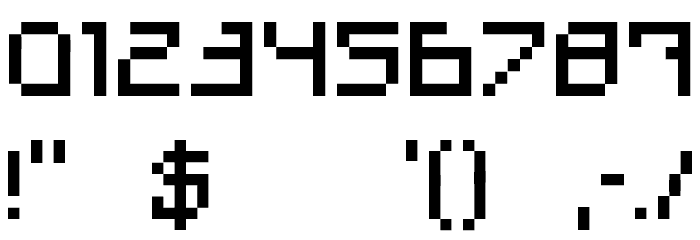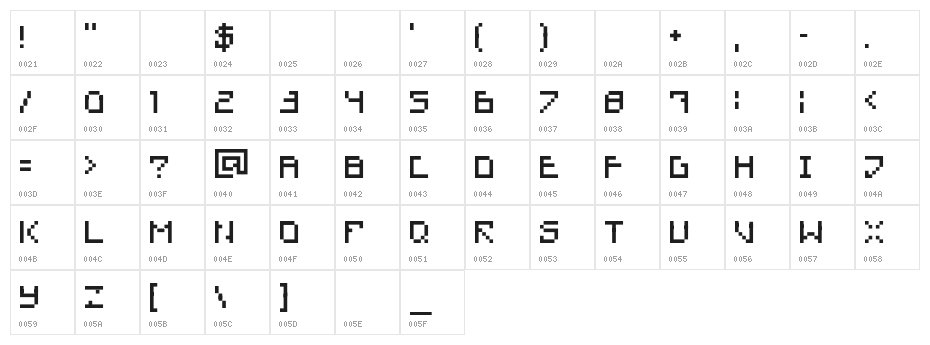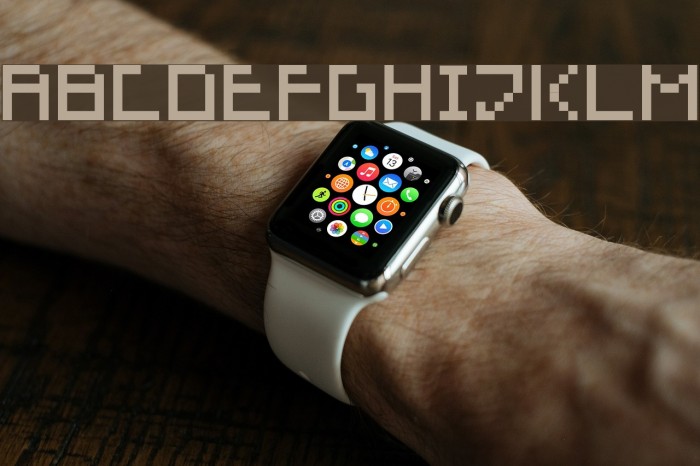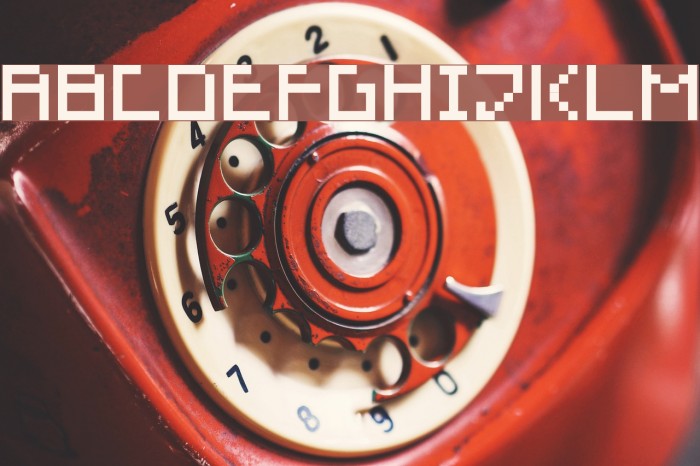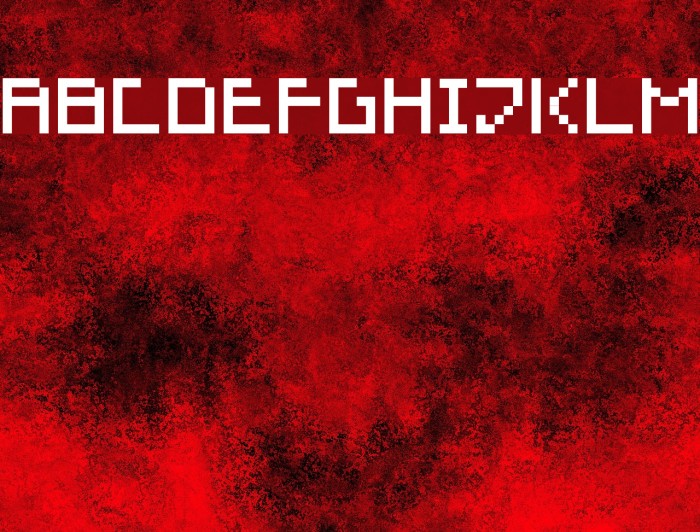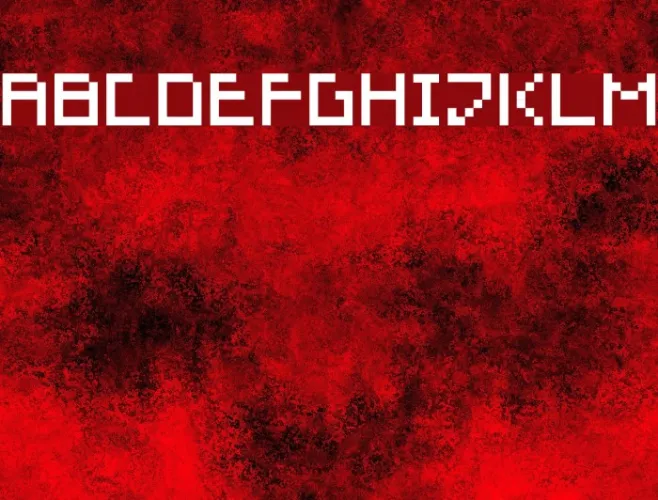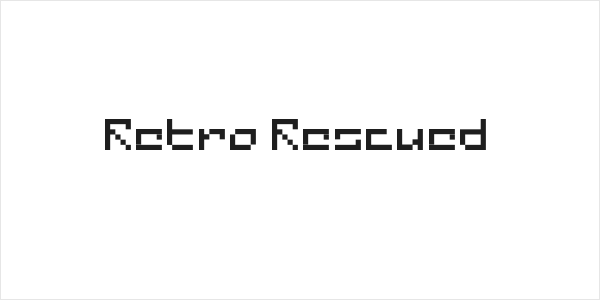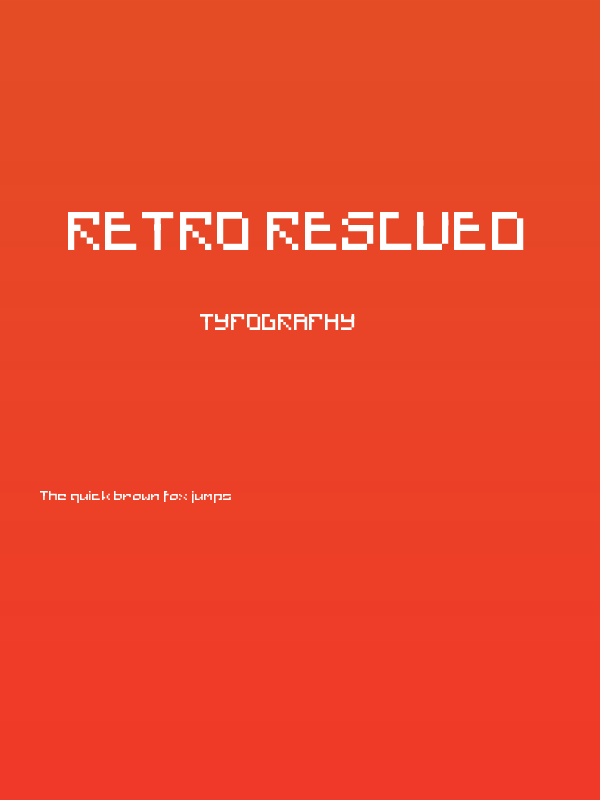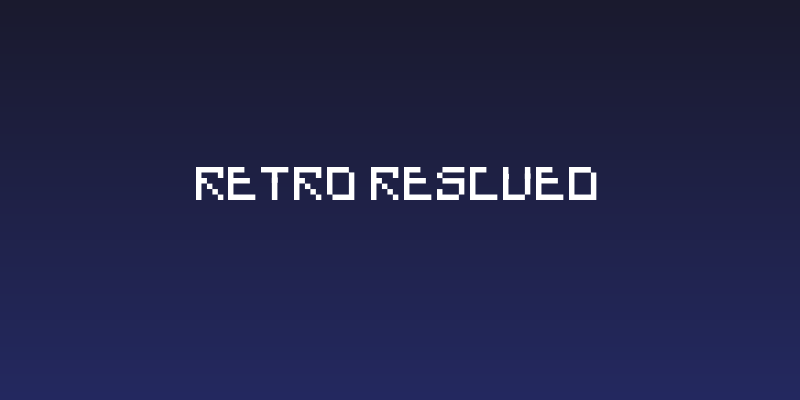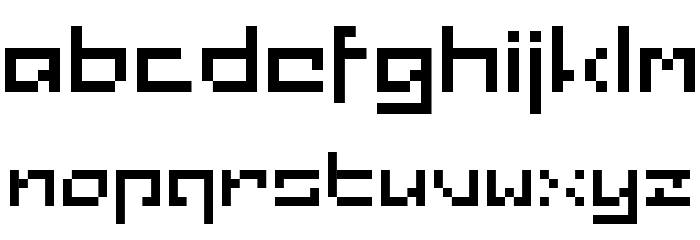
Retro Rescued Font
Retro Rescued Description
This font embodies a retro, pixelated style reminiscent of early digital displays and classic arcade games. The characters are constructed with a blocky, grid-like appearance, giving it a distinctly digital feel. Each letter and number is composed of uniform square pixels, creating a cohesive and consistent look across the entire set. The uppercase and lowercase letters maintain a similar structure, with slight variations to distinguish them. The numerals and special characters follow the same pixelated design, ensuring a unified aesthetic. This font is perfect for projects that aim to evoke nostalgia or a vintage tech vibe.
Overall StyleVintage
Use CaseLogos, Headlines, Digital Art
Proposed ProjectsIdeal for video game design, retro-themed posters, digital art, and tech-related branding.